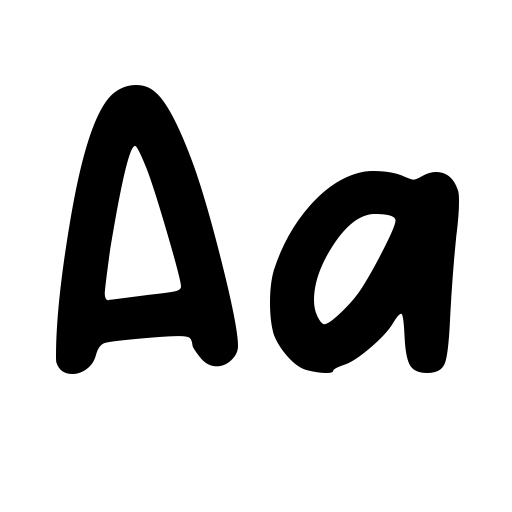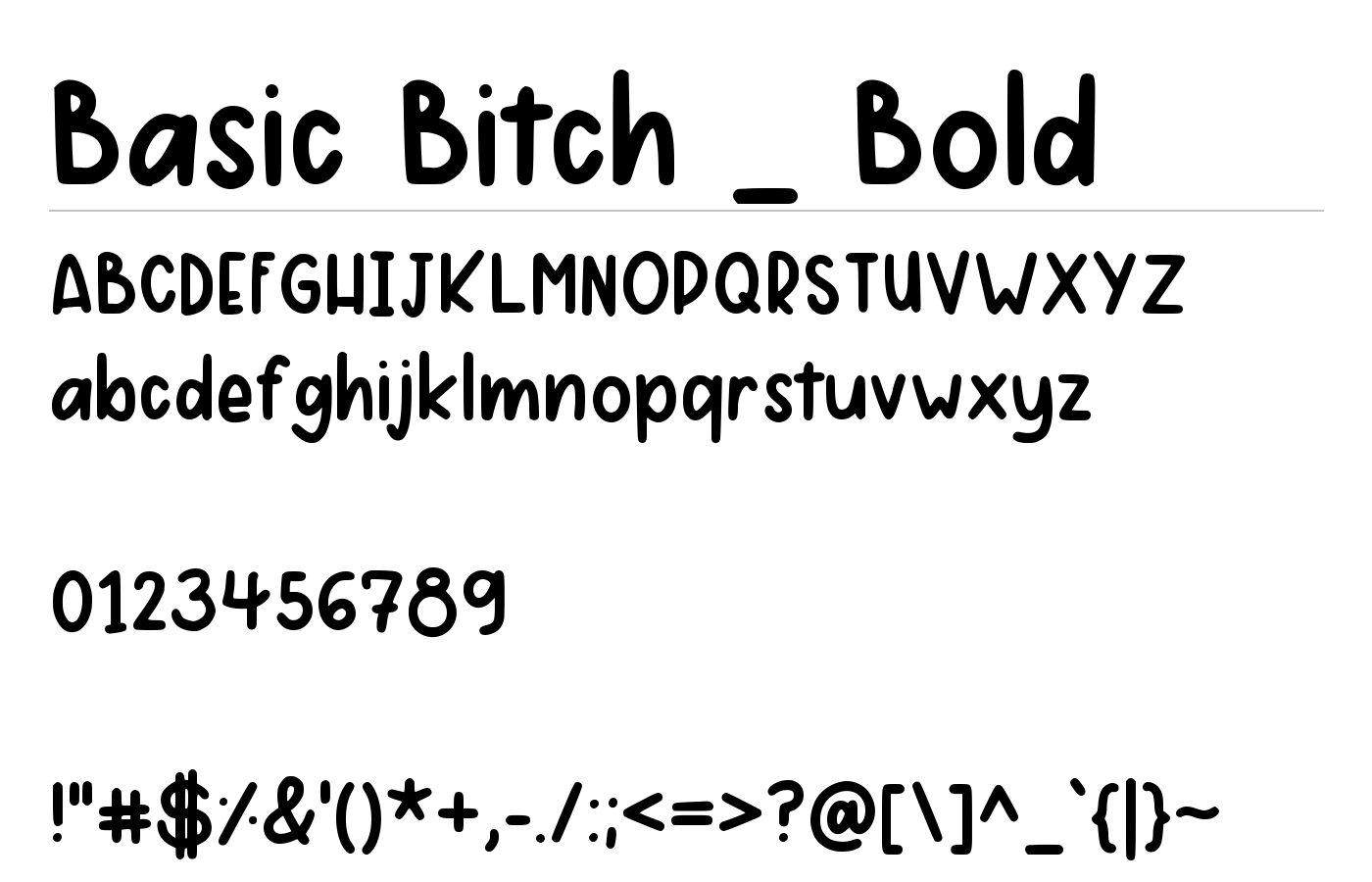
Basic Bitch Regular is a bold, playful sans serif font with a casual, hand-drawn feel. Its rounded, slightly irregular letterforms and generous x-height give it a friendly and approachable personality, making it perfect for informal branding, fun headlines, and creative projects that want to convey warmth and originality. This font works especially well for social media graphics, children's materials, and lifestyle brands seeking a modern, relaxed vibe.
Basic Bitch _ Regular Font